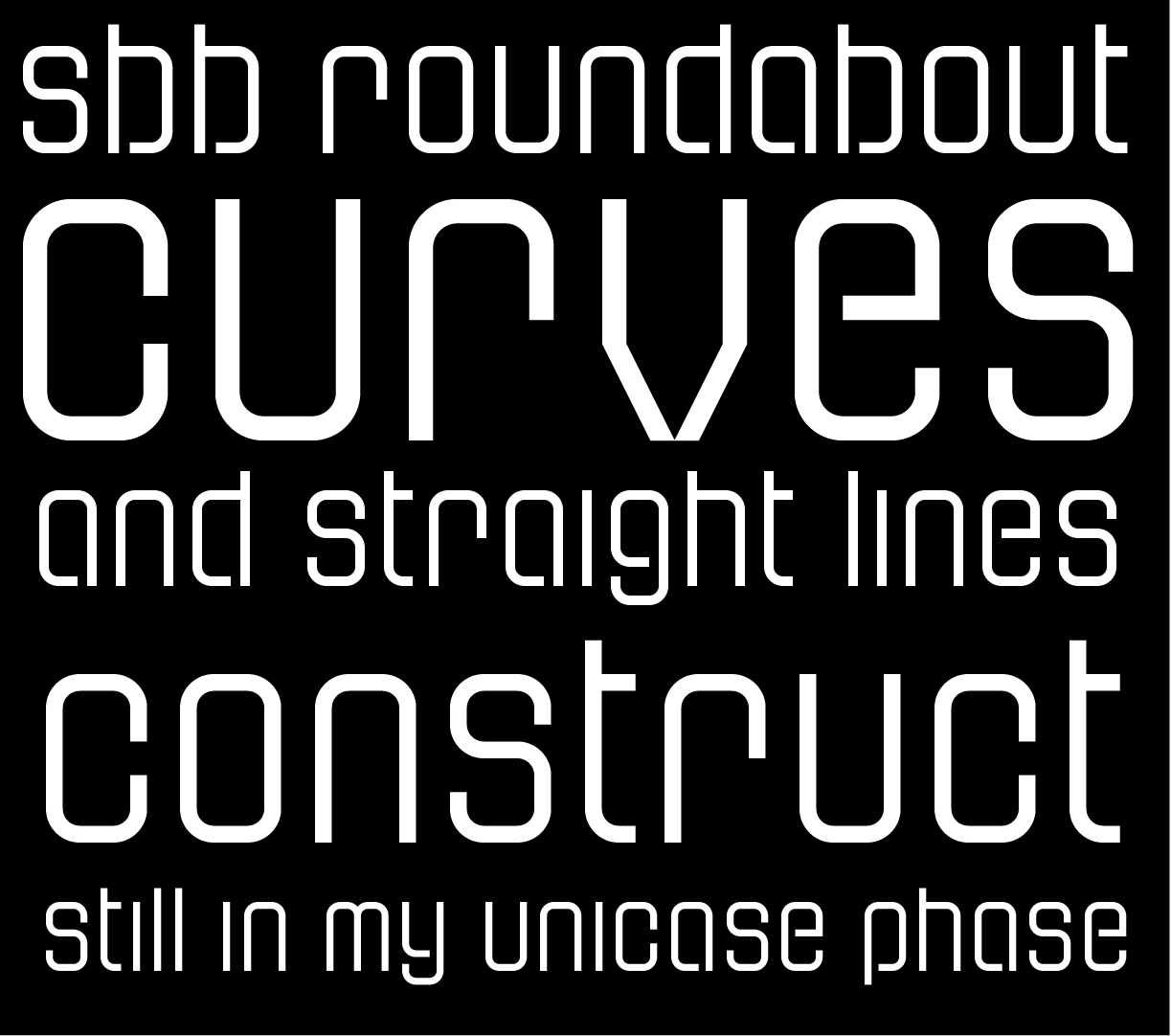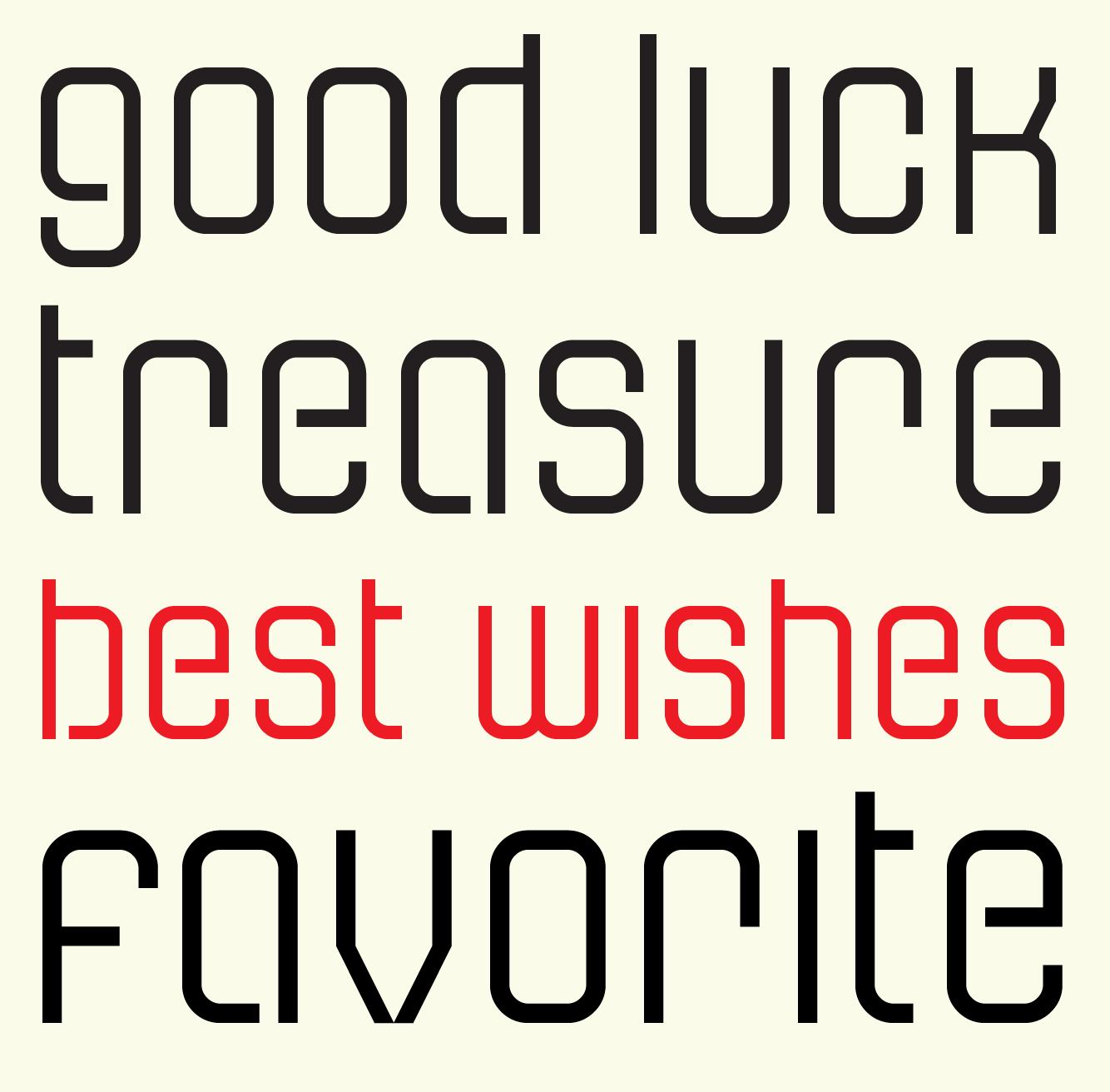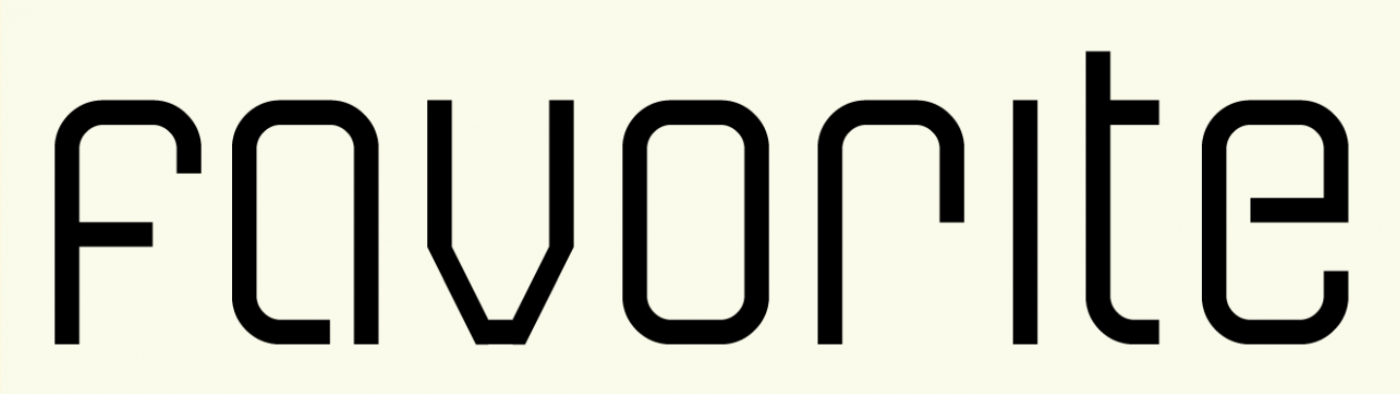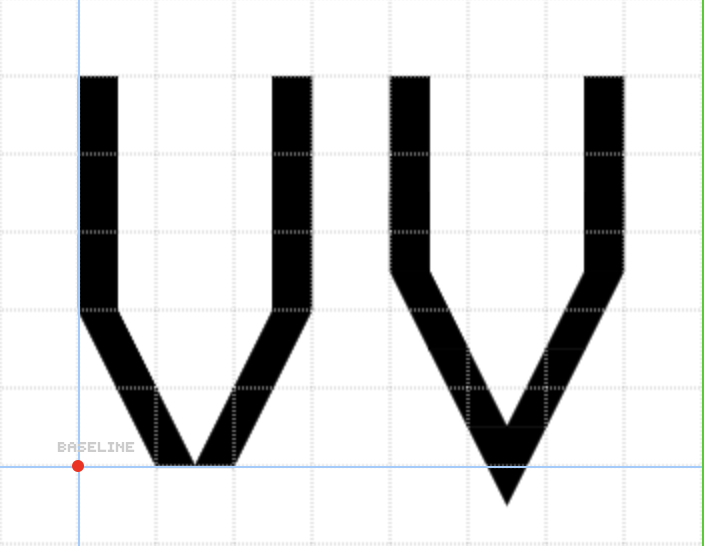
What about this "v"?
I kinda like the weirdly broken v. I think if I was going to adjust the v, it would be to extend the point below the baseline.
also the broken [V] looks like a stencil one
This is insanely cool, lowercase is pretty nice in my opinion
So I decided to refine this design in Glyphs. Gave it a new name since Roundabout was taken. Added an italic and some Opentype features (including an alternate V and some cute little icons). In honor of my 50th birthday, I released it for free on my site under the SIL Open Font License, so I changed the license here as well to match.